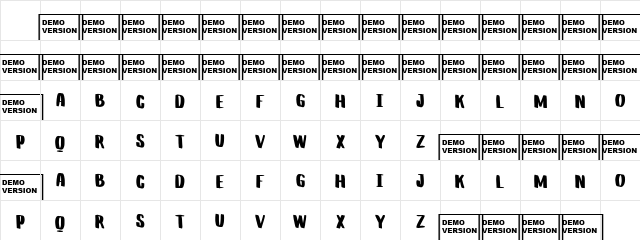
Complete Better Together Caps glyph index. Displaying only characters natively supported by Better Together Caps font.
Better Together is a composed and adaptable typeface that performs quietly and consistently across a wide range of design contexts.